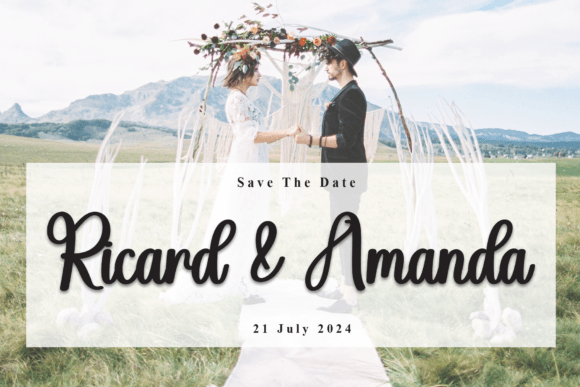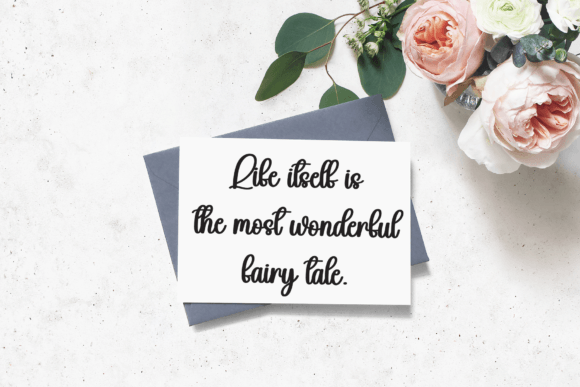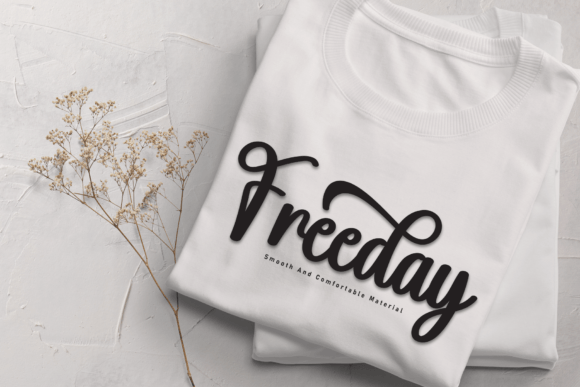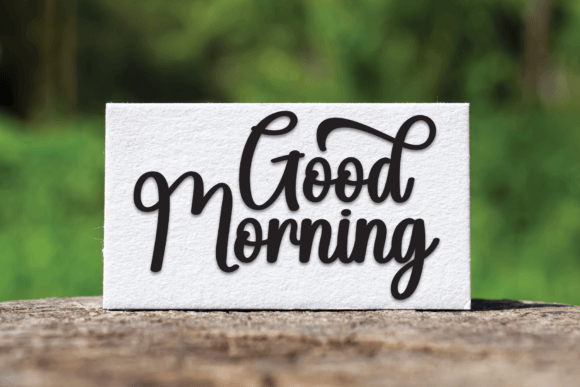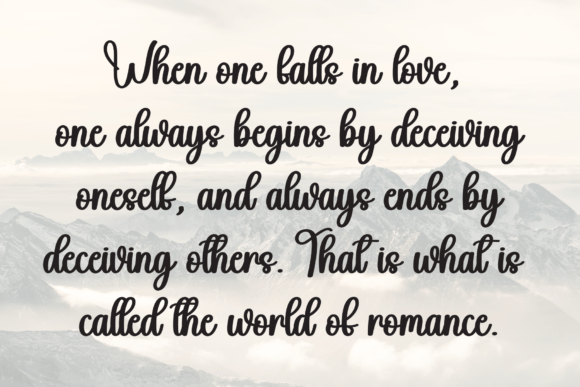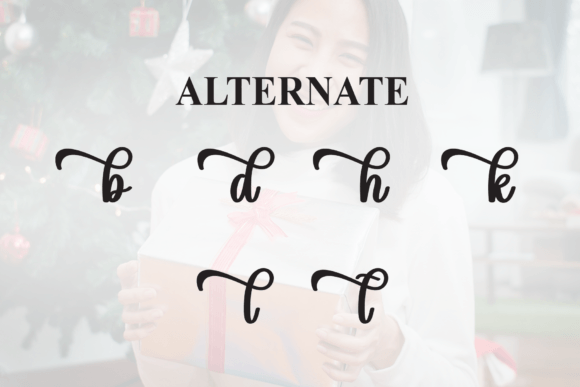
Introduction to Smile Christmas Font Font
Fonts play a crucial role in design, and the Smile Christmas Font font is a typeface that brings both character and versatility to any project. Whether you’re working on a branding project, a website, or a print design, the Smile Christmas Font font offers a unique style that can elevate your work.
Introducing the irresistibly charming handwritten display font, exuding sweetness and friendliness in each curve and stroke.
Perfect for adding whimsy and warmth to wedding invitations, greeting cards, and other delightful designs, this facet of typeface artistry effortlessly brings a joyful, playful touch to your creations Its cute, fun aesthetic injects engaging allure, turning ordinary texts into extraordinary expressions of creativity.
Key Features of Smile Christmas Font Font
Why Choose Smile Christmas Font Font?
The Smile Christmas Font font is more than just a typeface – it’s a design tool that helps you communicate your message with style and clarity. Its unique character set and versatile design make it suitable for a wide range of applications, from elegant invitations to bold headlines.
With its carefully crafted letterforms and balanced proportions, the Smile Christmas Font font ensures readability and visual appeal across all mediums.
What makes Smile Christmas Font font special?
The Smile Christmas Font font stands out with its unique design, exceptional readability, and versatility across various design applications.